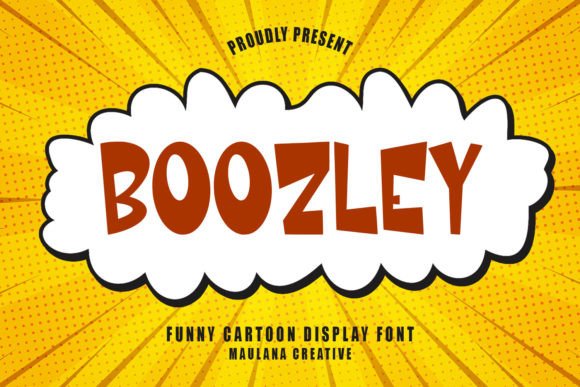
Introducing Boozley Cartoon Display Font: Adding a Touch of Whimsy to Your Designs
Are you looking for a font that can add a dash of fun and personality to your designs? Look no further than Boozley Cartoon Display Font. This playful and whimsical font is bursting with character, making it perfect for a variety of creative projects. In this article, we’ll take a closer look at Boozley and explore its features, benefits, and uses.
What is Boozley Cartoon Display Font?
Boozley Cartoon Display Font is a unique and eye-catching font designed to bring a touch of whimsy to your designs. Its cheerful curves and bold lines make it perfect for adding a playful touch to any project. Whether you’re working on a comic, children’s book, or creative project, Boozley is sure to make your design stand out.
Key Features of Boozley Cartoon Display Font
So, what makes Boozley Cartoon Display Font so special? Here are some of its key features:
- Playful and whimsical design: Boozley has a unique and playful design that’s sure to add a touch of fun to any project.
- Cheerful curves and bold lines: The font’s cheerful curves and bold lines make it perfect for adding a playful touch to your designs.
- Perfect for comics and children’s books: Boozley’s playful design makes it perfect for comics, children’s books, and other projects that require a fun and whimsical touch.
- Easy to read: Despite its playful design, Boozley is easy to read, making it perfect for use in a variety of projects.
Benefits of Using Boozley Cartoon Display Font
So, why should you use Boozley Cartoon Display Font in your designs? Here are some of the benefits of using this font:
- Adds a touch of personality: Boozley adds a touch of personality to your designs, making them stand out from the crowd.
- Perfect for creative projects: Boozley is perfect for creative projects that require a fun and whimsical touch.
- Versatile: Boozley can be used in a variety of projects, from comics and children’s books to posters and flyers.
Uses of Boozley Cartoon Display Font
So, what can you use Boozley Cartoon Display Font for? Here are some ideas:
- Comics: Boozley is perfect for use in comics, adding a playful touch to your characters and storylines.
- Children’s books: Boozley is a great choice for children’s books, adding a fun and whimsical touch to your story.
- Posters and flyers: Boozley can be used to create eye-catching posters and flyers that are sure to grab attention.
- Social media graphics: Boozley can be used to create fun and engaging social media graphics that are sure to stand out.
Tips for Using Boozley Cartoon Display Font
Here are some tips for using Boozley Cartoon Display Font:
- Use it sparingly: Boozley is a bold font, so use it sparingly to add emphasis to your design.
- Pair it with other fonts: Boozley can be paired with other fonts to create a unique and eye-catching design.
- Experiment with colors: Boozley looks great in a variety of colors, so experiment with different colors to find the one that works best for your design.
In conclusion, Boozley Cartoon Display Font is a unique and eye-catching font that’s perfect for adding a touch of whimsy to your designs. Its playful and whimsical design makes it perfect for comics, children’s books, and creative projects that require a fun and playful touch. With its bold lines and cheerful curves, Boozley is sure to make your design stand out. So why not give Boozley a try and see how it can add a touch of personality to your designs?
Here are some frequently asked questions about Boozley Cartoon Display Font:
- What is Boozley Cartoon Display Font?: Boozley Cartoon Display Font is a playful and whimsical font designed to add a touch of fun and personality to your designs.
- Is Boozley Cartoon Display Font easy to read?: Yes, Boozley Cartoon Display Font is easy to read, making it perfect for use in a variety of projects.